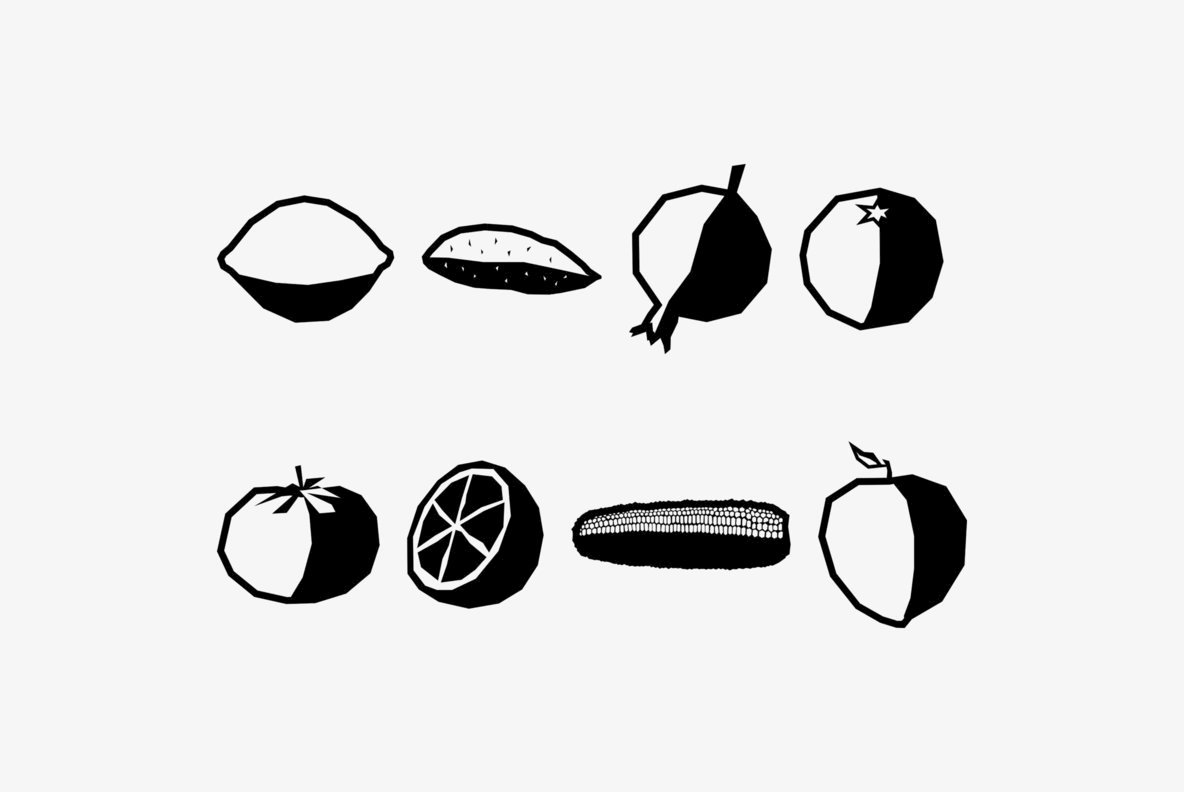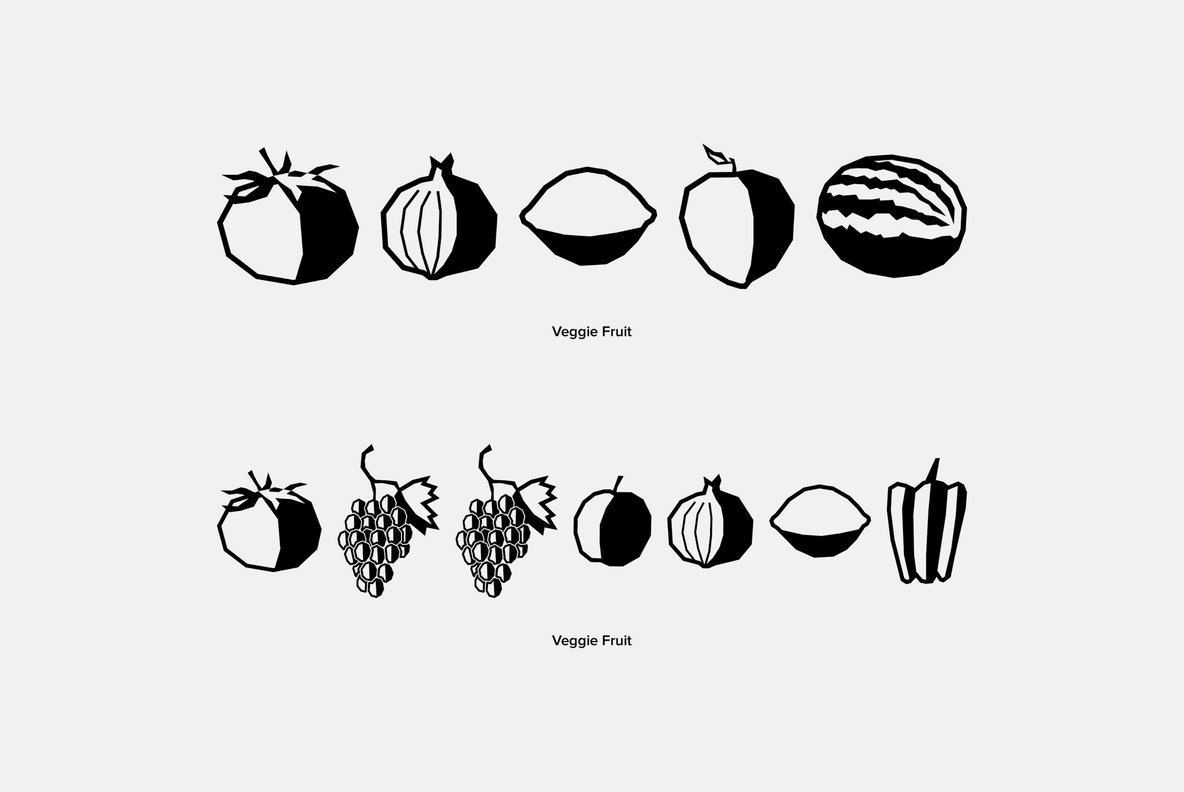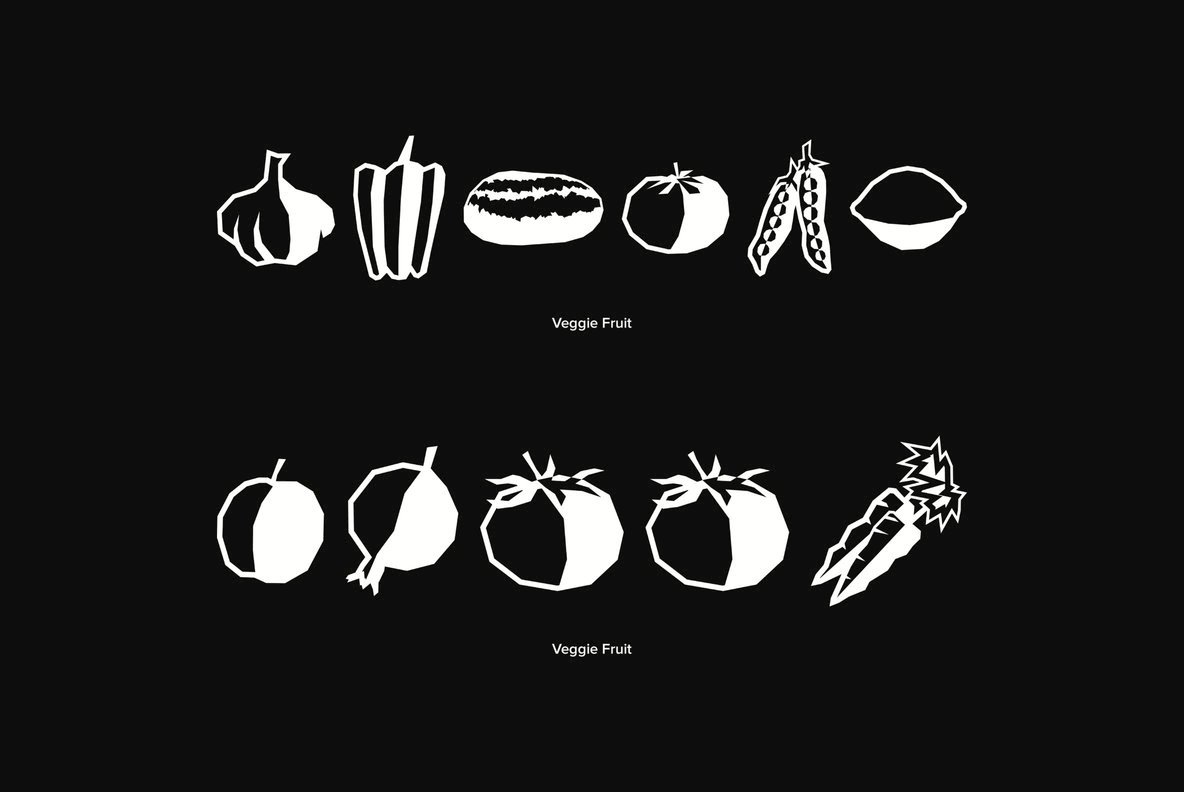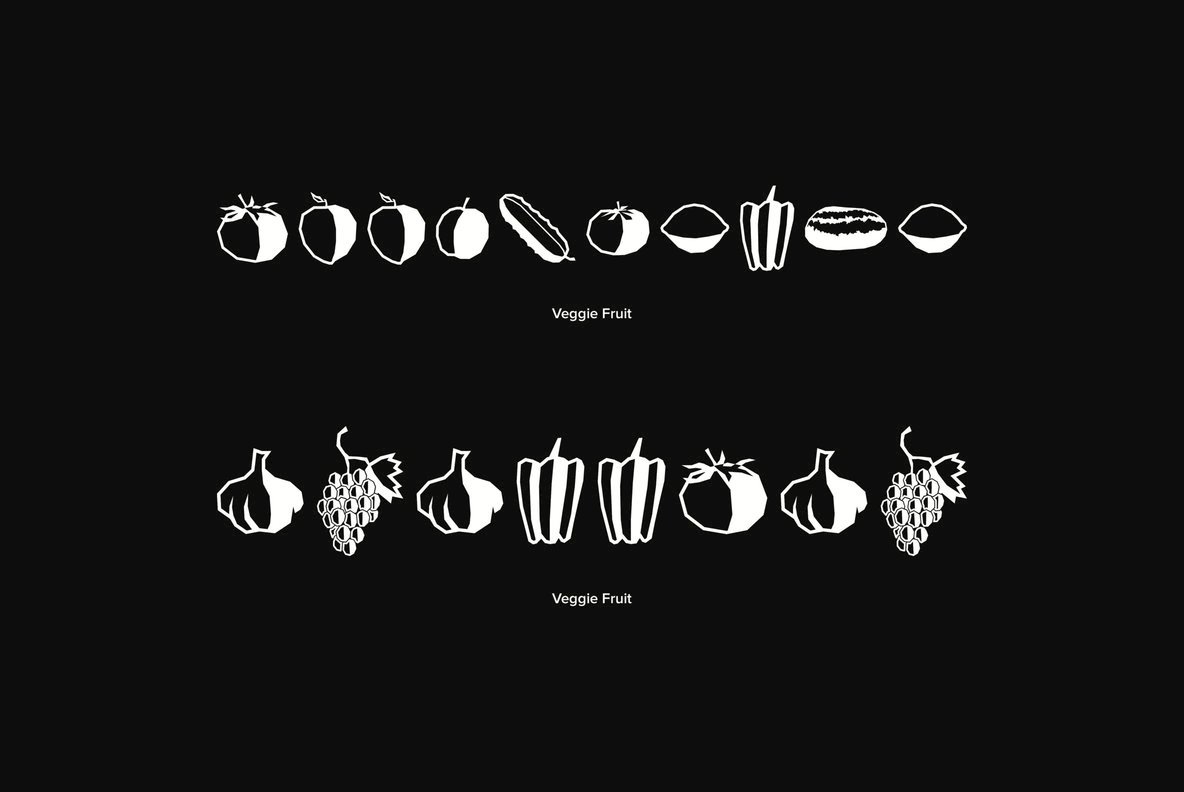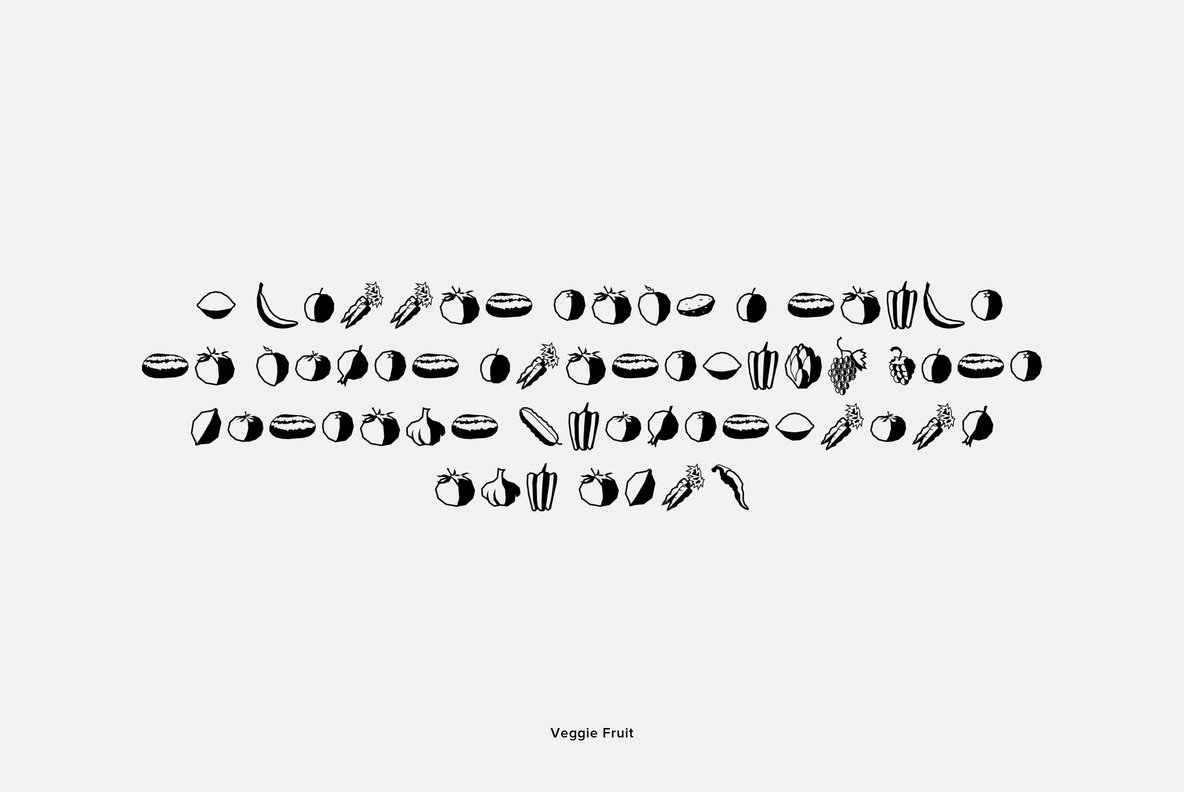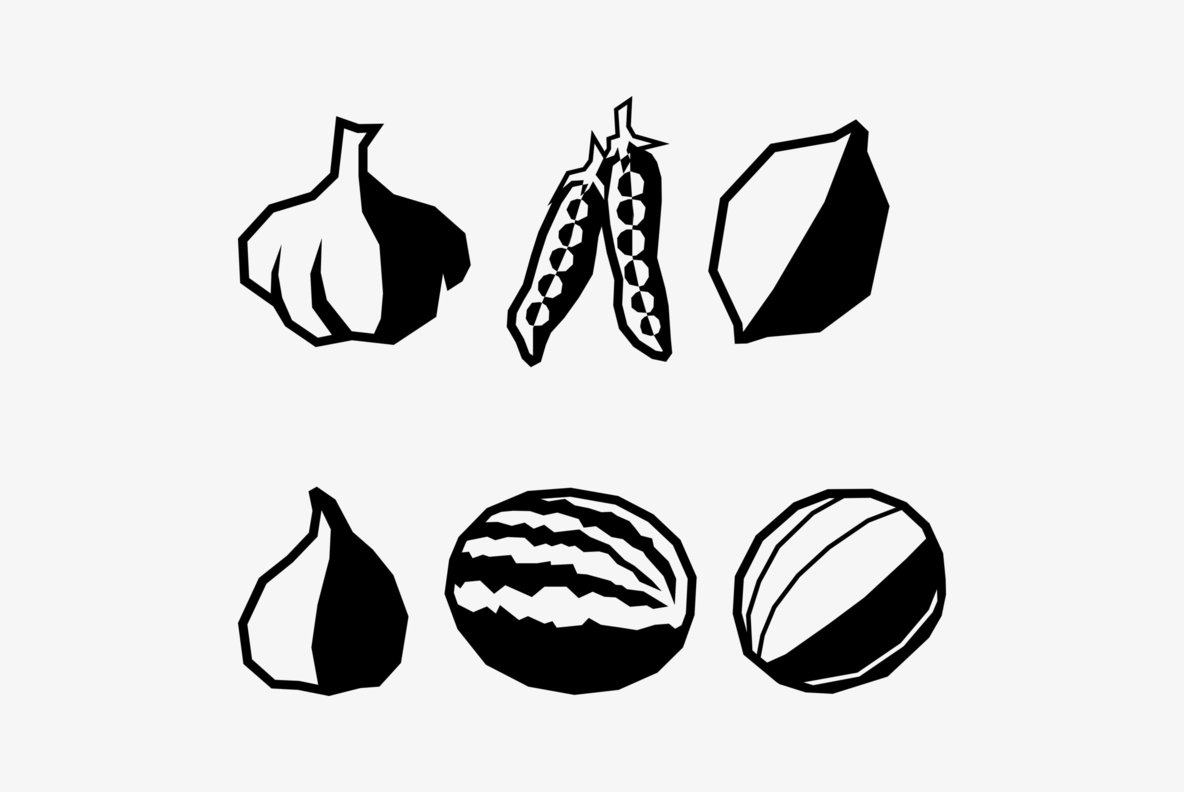
Veggie Fruit Font
Veggie Fruit
VeggieFruit is an assortment of 47 vegetables and fruits all located under the character keys.
Gerald Gallo is a professional graphic designer.While designing trademarks and logotypes, Gerald often designed unique lettering. It was a natural step to create entire alphabets from some of these designs. However, it was very difficult to have a font produced before the advent of the personal compute...